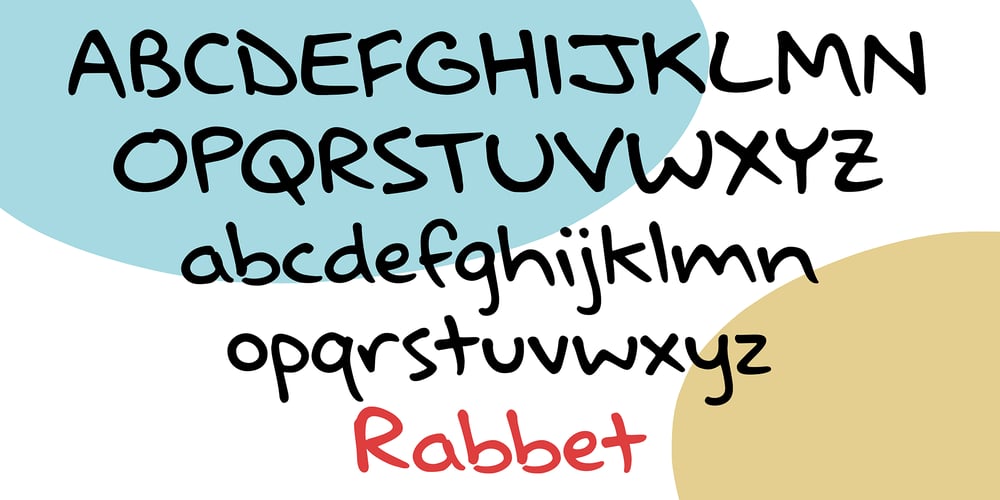
Rabbet Font Family was designed by Amy Dietrich and published by Atlantic Fonts. Rabbet contains 1 styles and family package options. Rabbet is based on the handwriting of Maine furniture designer and maker, Aaron Fedarko. It’s friendly, bold, condensed, and slants left. Rabbet’s special feature, besides loads of boyish charm, is a load of handwritten fractions as discretionary ligatures. Whether you’re curious about woodworking (a rabbet is a type of joint), or you just want a cool, maybe slightly rebellious font, Rabbet is ready to do the work.